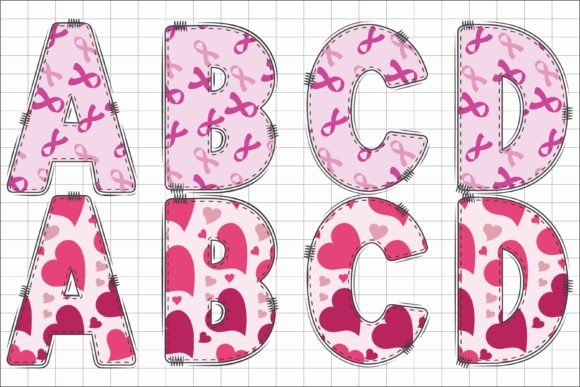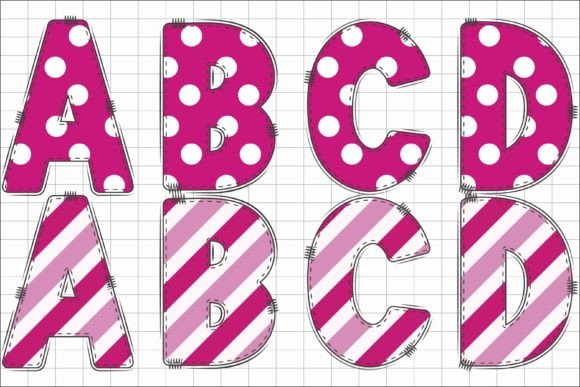
Cancer Font: Adding a Touch of Whimsy to Your Designs
Are you a designer or crafter looking for a unique and eye-catching font to elevate your projects? Look no further than the Cancer Font, a chic and assertive decorative font that’s perfect for making a statement. With its whimsical and quirky vibe, this font is sure to enhance each of your designs and leave a lasting impression.
What is Cancer Font?
Breast Cancer is a decorative font that’s as stylish as it is meaningful. This font is not just a typographical style, but a statement piece that can add a touch of personality to any design. Whether you’re working on a breast cancer awareness project, a fashion brand, or simply a creative endeavor, the Cancer Font is sure to make your work stand out.
Key Features of Cancer Font
- Chic and Assertive: The Cancer Font boasts a bold and confident style that’s perfect for making a statement.
- Whimsical and Quirky: With its unique and playful vibe, this font adds a touch of whimsy to any design.
- Versatile: The Cancer Font can be used in a variety of projects, from fashion and beauty to health and wellness.
Benefits of Using Cancer Font
So why choose the Cancer Font for your designs? Here are just a few benefits:
- Unique Style: The Cancer Font offers a unique and eye-catching style that’s sure to set your designs apart.
- Emotional Connection: The font’s association with breast cancer awareness adds an emotional connection to your designs, making them more relatable and impactful.
- Versatility: The Cancer Font can be used in a variety of contexts, from formal to informal, making it a versatile addition to your font library.
Tips and Tricks for Using Cancer Font
Here are a few tips and tricks for getting the most out of the Cancer Font:
- Use it Sparingly: While the Cancer Font is eye-catching, it’s best used sparingly to avoid overwhelming your design.
- Pair it with Other Fonts: Experiment with pairing the Cancer Font with other fonts to create a unique and visually appealing combination.
- Consider the Context: Make sure the Cancer Font aligns with the tone and context of your project.
The Cancer Font is a chic and assertive decorative font that’s perfect for designers and crafters looking to add a touch of whimsy to their projects. With its unique style, versatility, and emotional connection, this font is sure to enhance each of your designs and leave a lasting impression. So why not give it a try and see the difference it can make?